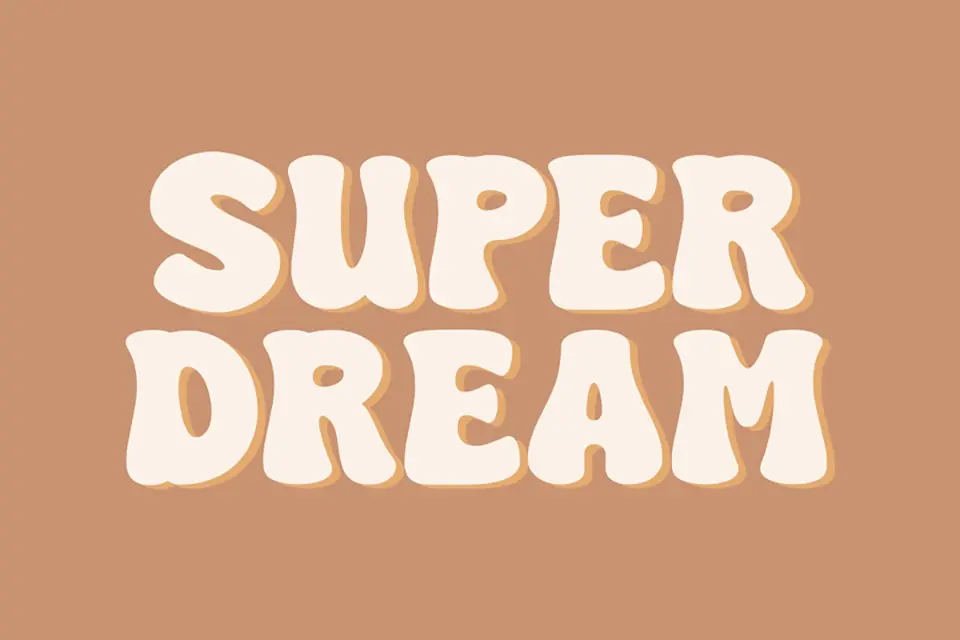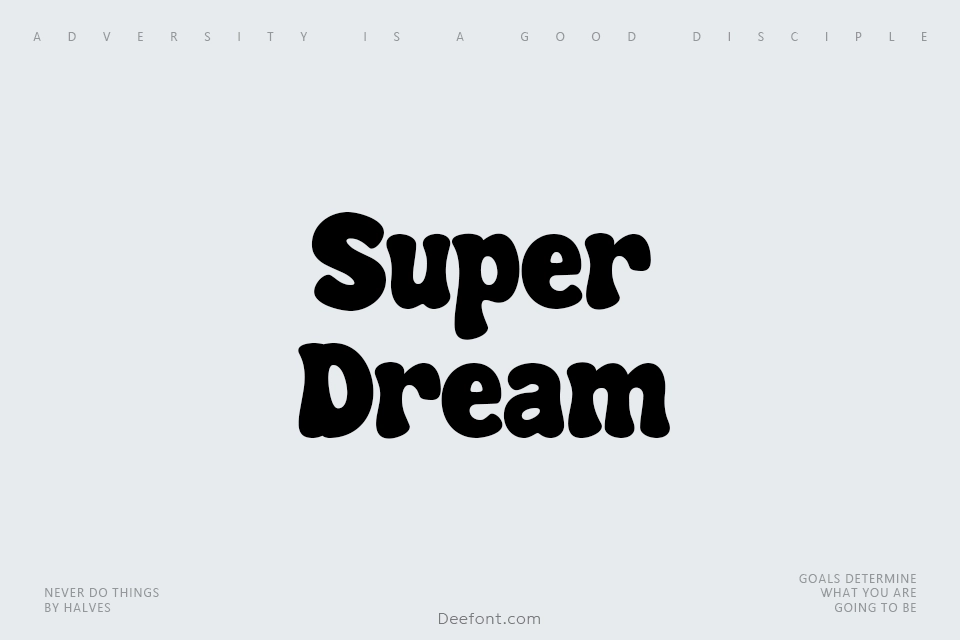
Super Dream Font
Super Dream is a display font that exudes groovy vibes with its extra-bold weight and curvaceous letterforms. Featuring playful flourishes perfect for retro-themed projects, this typeface captures the essence of the psychedelic era. Ideal for album covers, party invitations, and funky poster designs, it brings eye-catching style and bold unique identity to branding projects. Its distinctive character set of 451 glyphs makes it perfect for designers seeking nostalgic flair and creative expression.